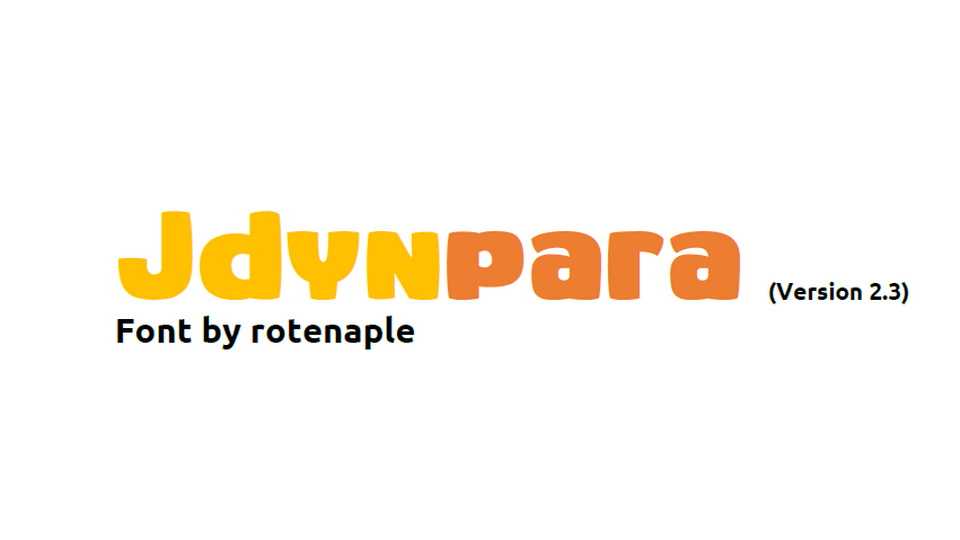
Download Jdynpara Sans font, a handwritten typeface inspired by a fellow friend’s obsession in a visual novel. Jdynpara Sans is perfect for posters, games, book titles, kid’s products, crafts and other artworks.